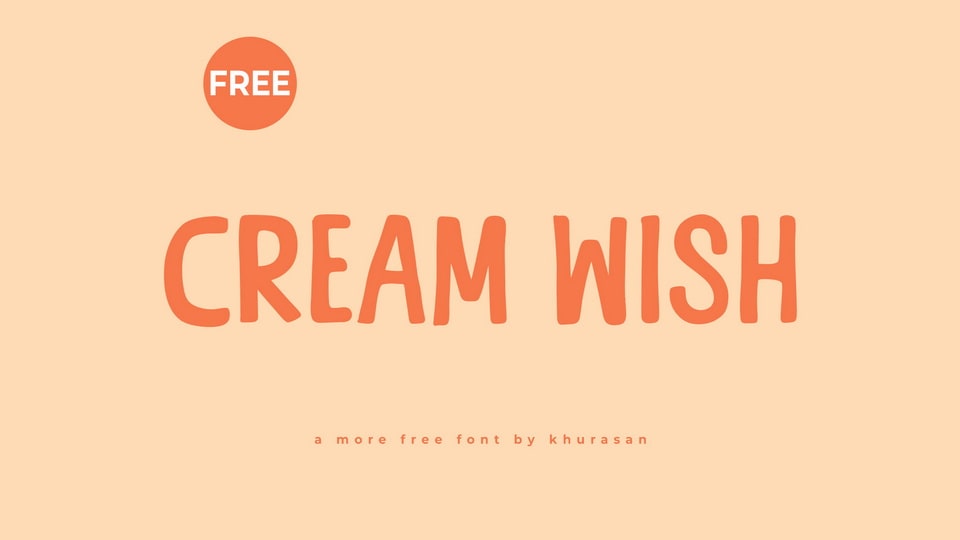
Download Cream Wish font, a friendly and cheerful hand-drawn typeface that radiates warmth and positivity. With its playful curves and inviting letterforms, Cream Wish brings a joyful and approachable vibe.